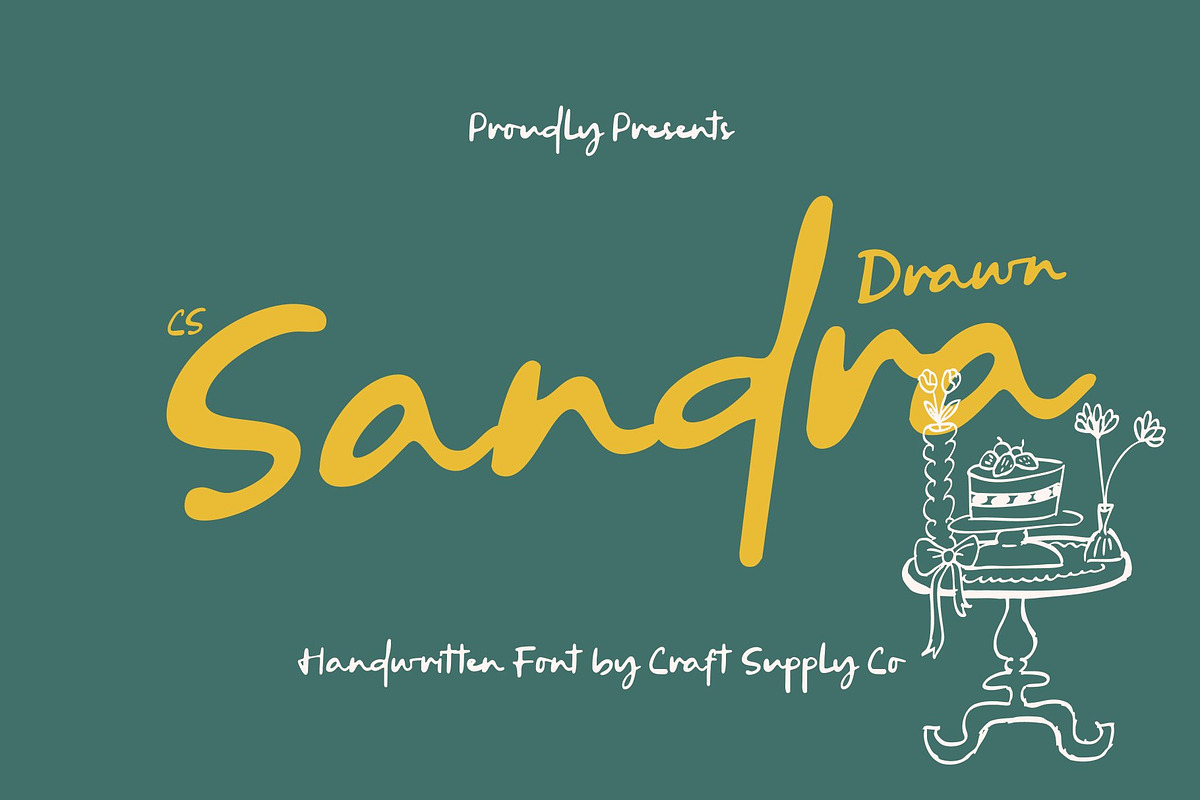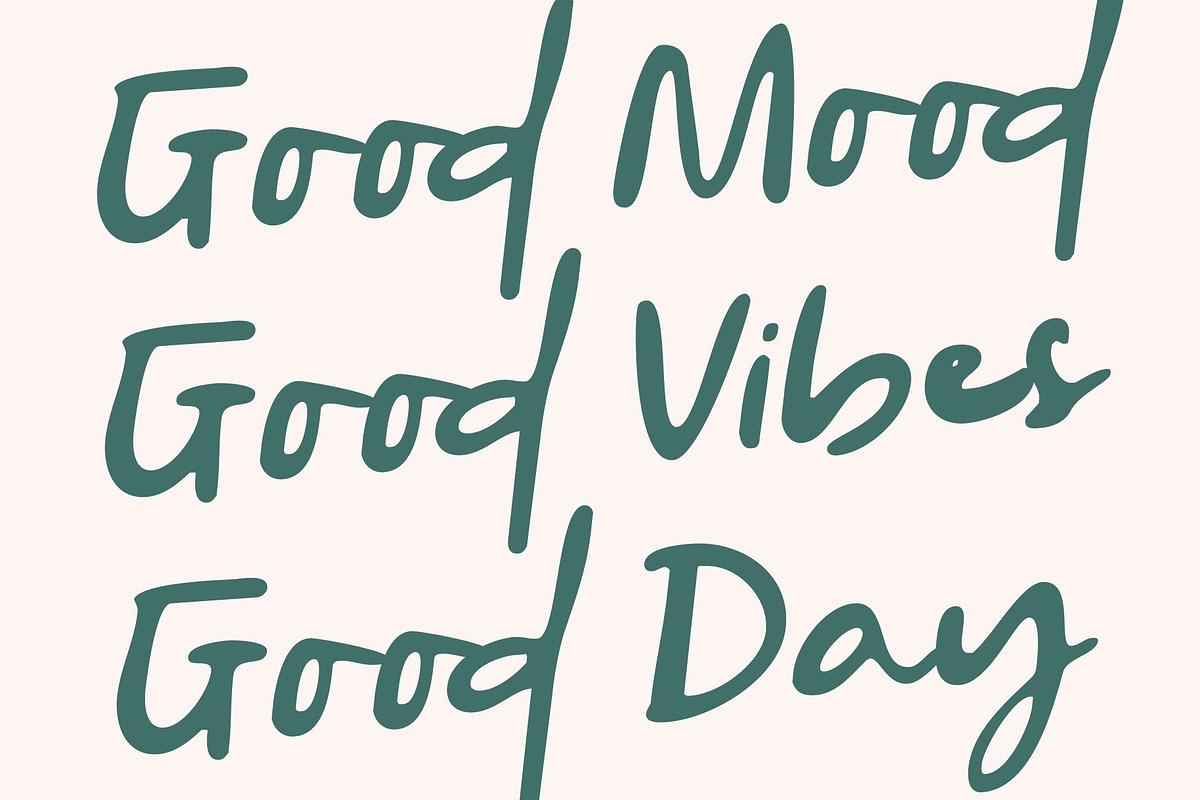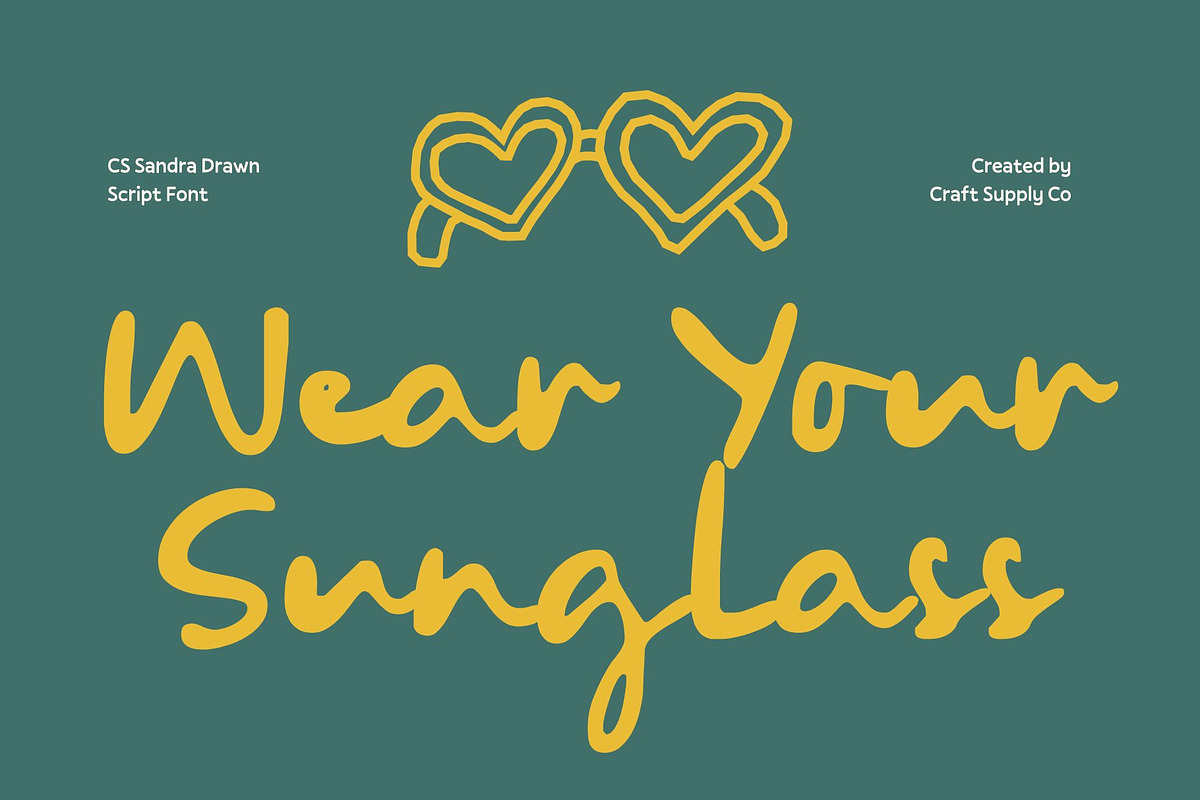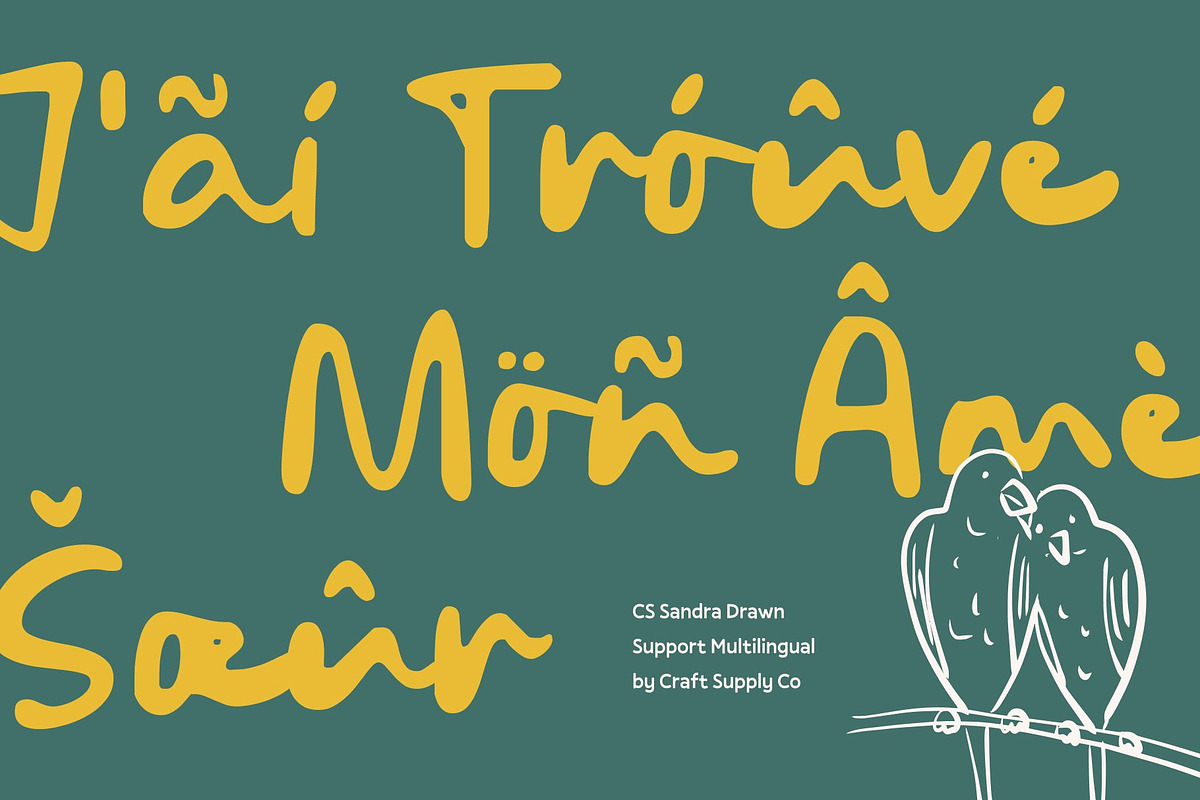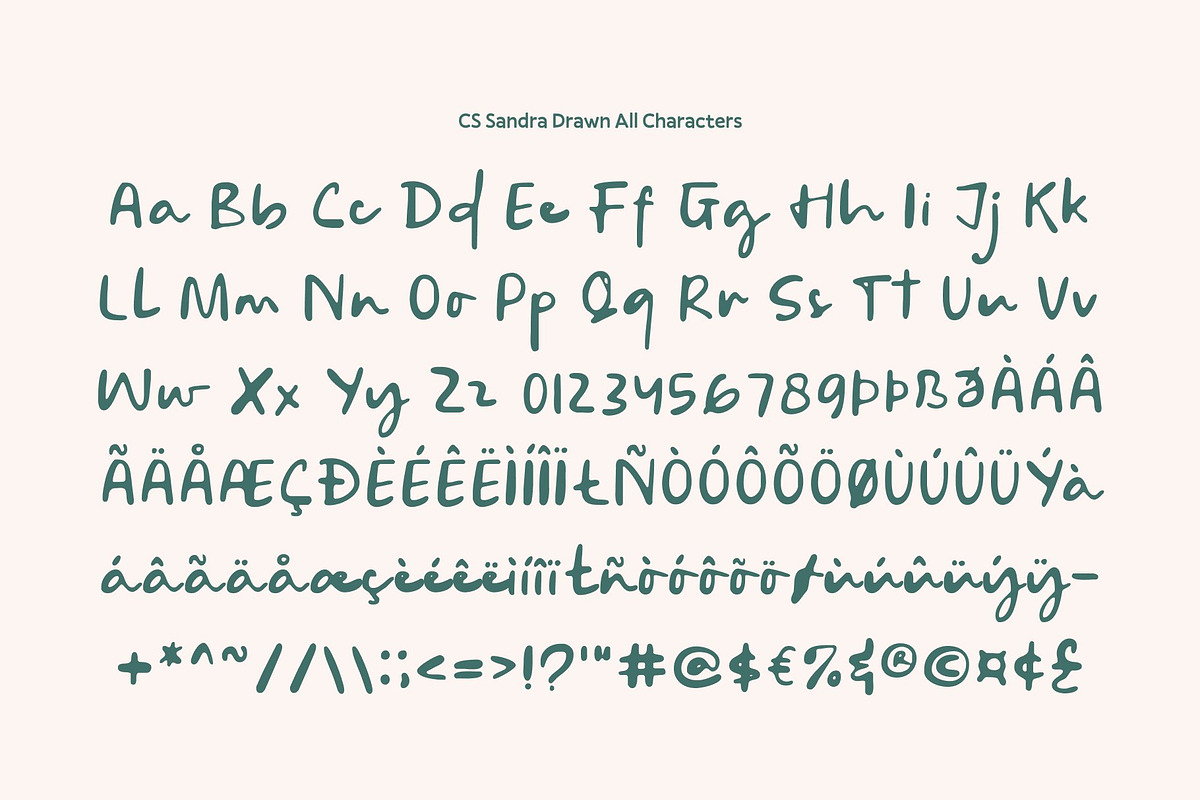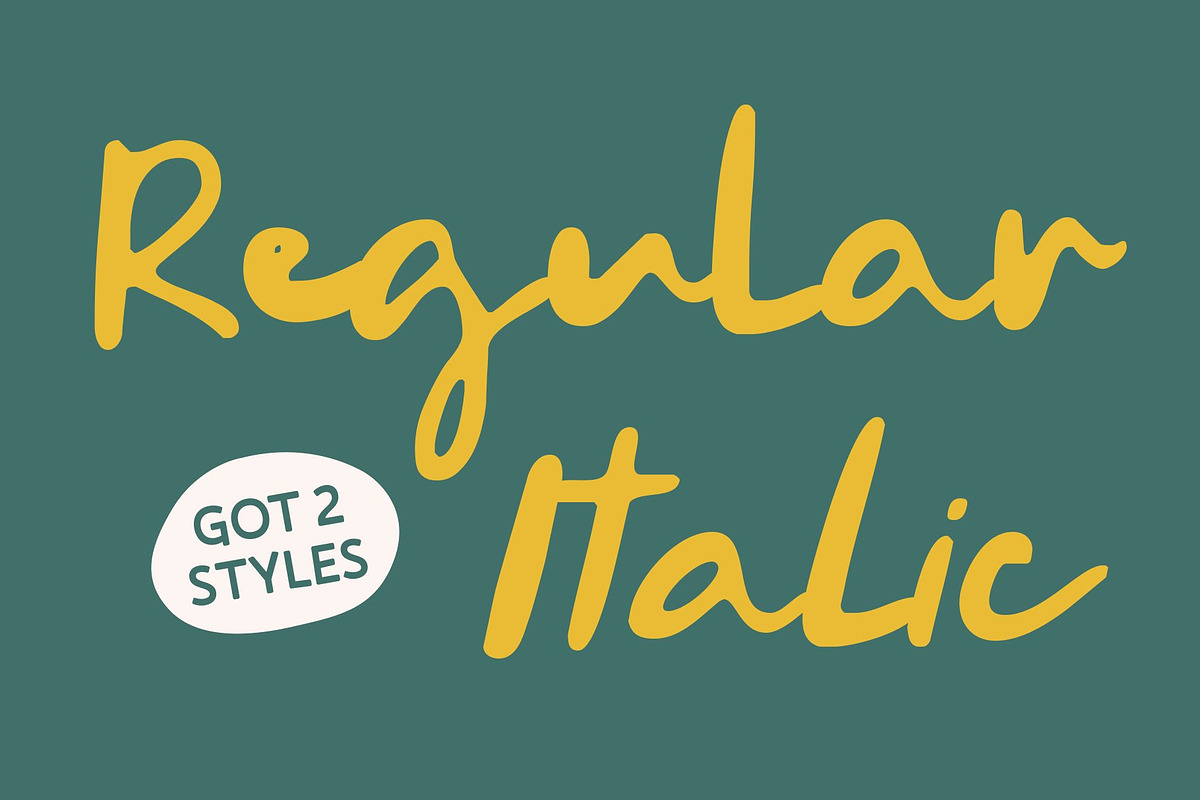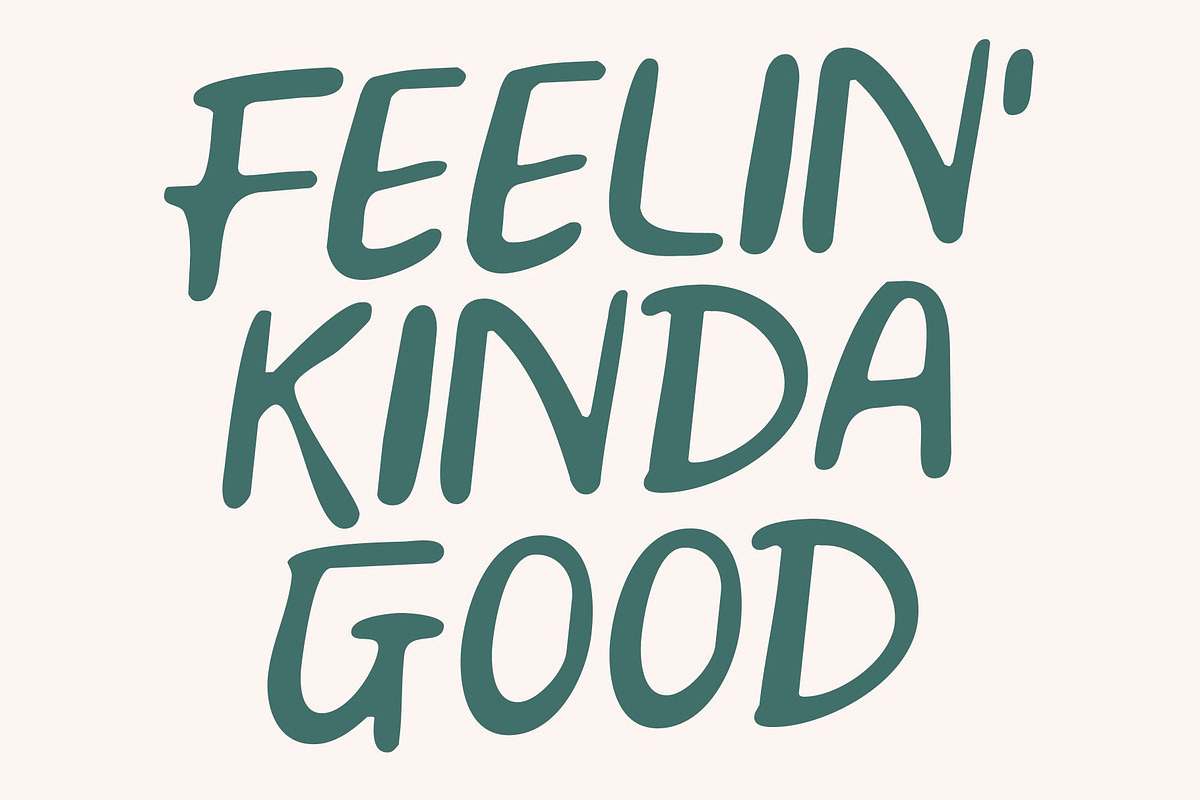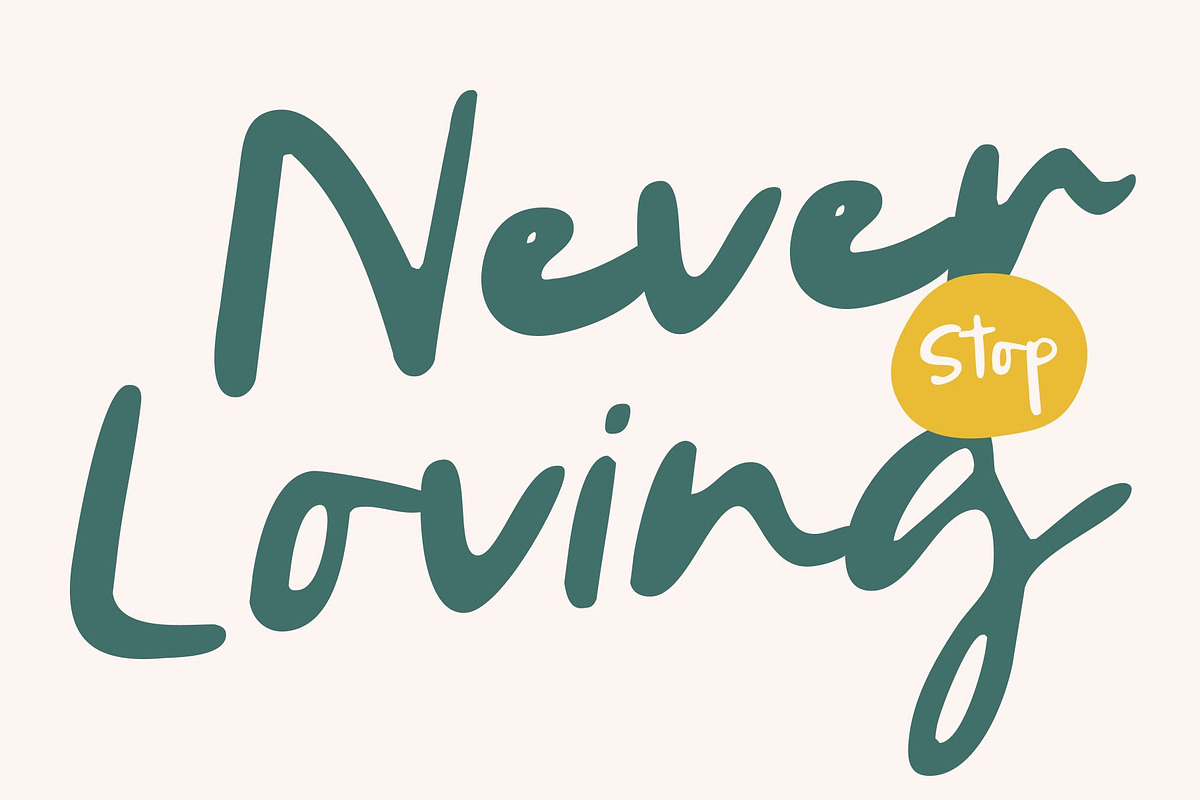
Sandra Drawn
CS Sandra Drawn – Relaxed Summer Vibes with Natural Handwritten Warmth
Summer Script with Hand-Drawn Authenticity This is a relaxed summer script font designed to radiate warmth, comfort, and effortless charm, enriched with a subtle hand-drawn texture. Inspired by natural handwriting and laid-back sunny moments, it carries a friendly and inviting personality that feels light, carefree, and genuine. The drawn finish enhances its organic appeal, making every word feel personally written.
Natural Flow with Warm, Organic Expression Soft connections and fluid strokes closely mimic real handwriting, creating a smooth and easy rhythm across text. Gentle variations in line weight and slight handcrafted nuances add authenticity and depth, preventing the script from feeling mechanical. This natural expression gives the font an approachable, heartfelt quality that strengthens emotional connection.
Relaxed Style with Cheerful Energy This font brings an easygoing summer mood to any layout. Its casual yet clear structure maintains readability while expressing playful warmth and positivity. Whether used for short quotes or bold headlines, the font communicates joy, comfort, and a sunny lifestyle aesthetic.
Perfect for Posters, Branding, and Invitations Ideal for summer campaigns, café branding, travel themes, handmade products, invitations, social media graphics, and lifestyle visuals, this font adds a warm, personal touch to creative projects. Its relaxed script style makes designs feel authentic, cheerful, and naturally inviting.
- CS Sandra Drawn Regular
- CS Sandra Drawn Italic